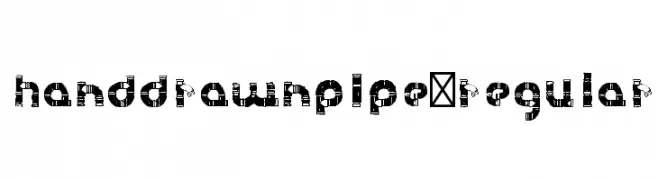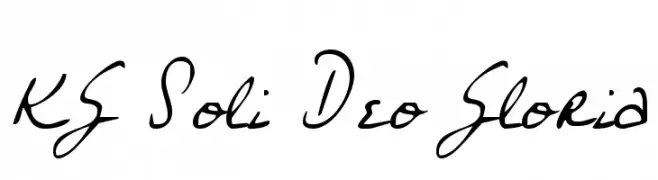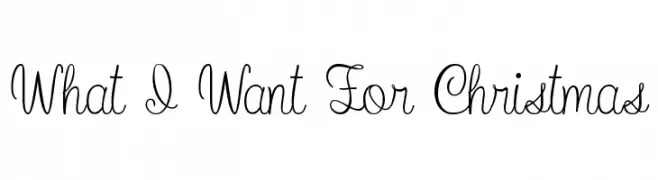
( Fonts by Darren Hassett )
A hand-drawn, pipe-like font with bold, interconnected lines and a playful style.
( Fonts by Rafa )
A playful font made of interconnected circles, perfect for creative projects.
( Fonts by Rafa )
A playful, bubble-themed decorative font with interconnected circular patterns.
( Fonts by www.kimberlygeswein.com - Kimberly Geswein )
A dynamic and flowing script font with elegant, interconnected strokes.
( Fonts by www.kimberlygeswein.com - Kimberly Geswein )
A playful, handwritten font with interconnected characters and a casual style.
A playful and whimsical script font with flowing, interconnected letters.